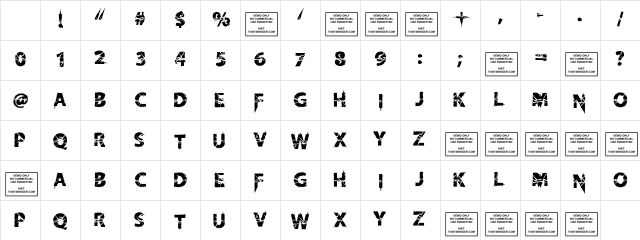
Knife Fight Ballet is a composed and adaptable typeface that performs quietly and consistently across a wide range of design contexts.
Pro Tip: Use Knife Fight Ballet in both headline and body roles to test its range before committing to a single application.